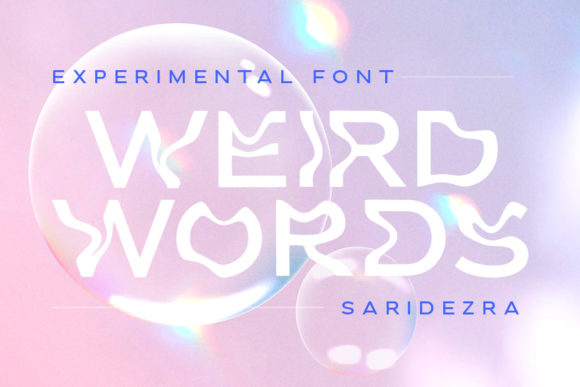
In the vast digital landscape where visual aesthetics reign supreme, typography stands as a beacon of creativity and expression. Introducing Weird Words Font, a captivating sans serif font family poised to transform your designs into extraordinary masterpieces. This meticulously crafted font, birthed from the artistic vision of saridezra, is a symphony of unconventional beauty and remarkable versatility. Its distinct character and captivating style will leave an indelible mark on your audience, resonating with those who seek fonts that dare to be different.
Picture this: your social media posts, posters, and headlines come alive with the striking presence of Weird Words Font. Its unique letterforms, meticulously designed to captivate and intrigue, will make your content leap off the screen and dance before the eyes of your viewers. Whether you're a seasoned designer seeking to elevate your projects or a creative entrepreneur looking to establish a strong brand identity, Weird Words Font is your ultimate companion.
Immerse yourself in the limitless possibilities that await you with Weird Words Font. Its PUA encoding unlocks a treasure trove of glyphs and swashes, empowering you to unleash your creativity like never before. Effortlessly add intricate details and flourishes to your designs, crafting compositions that exude sophistication and elegance. The seamless integration of these embellishments will leave your audience spellbound, eager to decipher the hidden messages woven within your text.
Dare to break free from the mundane and embrace the extraordinary with Weird Words Font. Its unconventional charm will ignite your imagination and propel your designs to new heights. As you witness the transformative power of this font, you'll realize that it's not just a collection of letters; it's an artistic statement, a reflection of your unique personality, and a testament to your unwavering commitment to excellence.
Embrace the allure of Weird Words Font and embark on a typographic journey like no other. Its captivating presence will captivate your audience, leaving them yearning for more. Prepare to be mesmerized as your designs transcend the ordinary and enter the realm of the extraordinary.